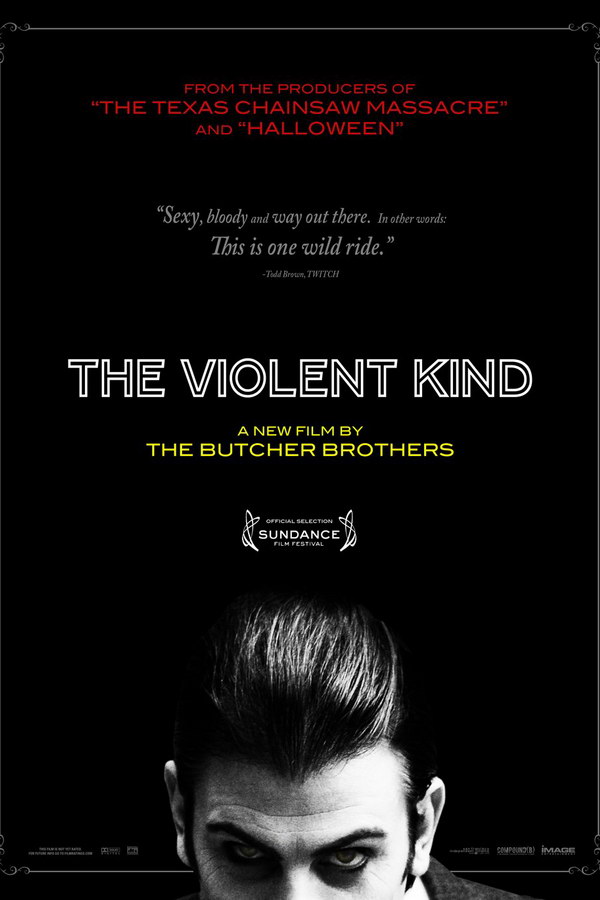
The Violent Kind Font
Fonts in UseThe Violent Kind is a 2010 horror film about a group of bikers who become embroiled in a supernatural battle while visiting a remote cabin. The movie is known for its intense violence and disturbing imagery.
The text featured on the movie poster appears to be written in the Fenwick Outline font, which was created by Ray Larabie. This unique font has a linear design with atypical proportions and is commercially available. To learn more about Fenwick Outline, click here.